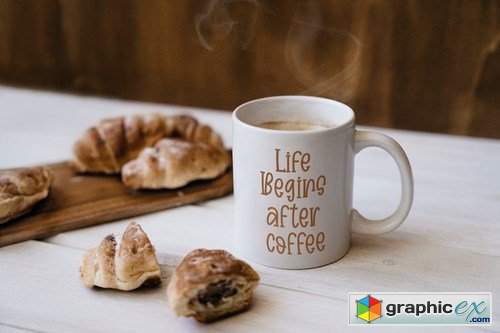
Farm Bluster Font
Farm Bluster Font is a new elegant and classy monoline script font.
It is perfect for your up coming projects. Such as modern design, branding, stationery design, blog design, modern advertising design, card invitation, art quote, home decor, book/cover title, special events ( wedding, birthday, etc ), and any more modern elegant design.